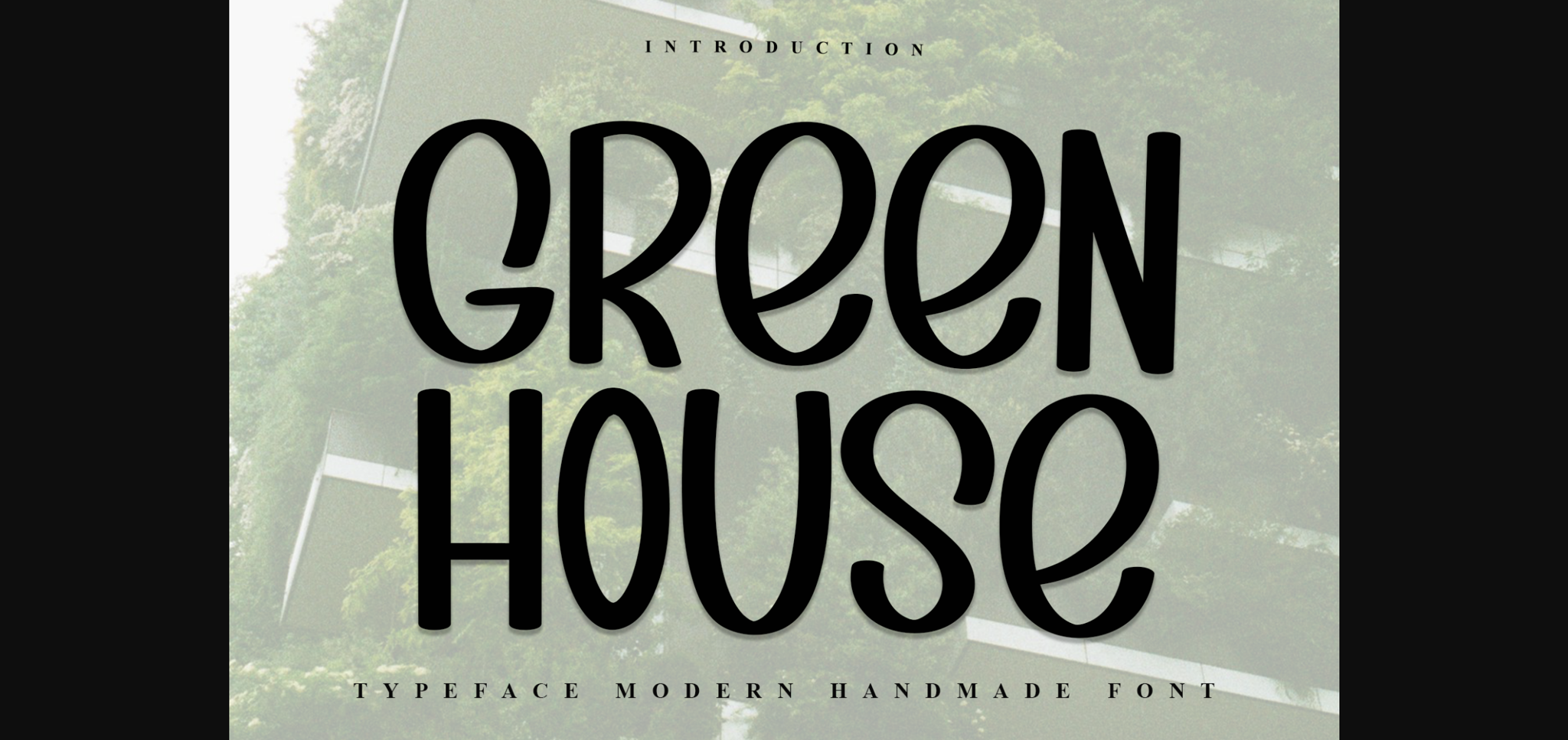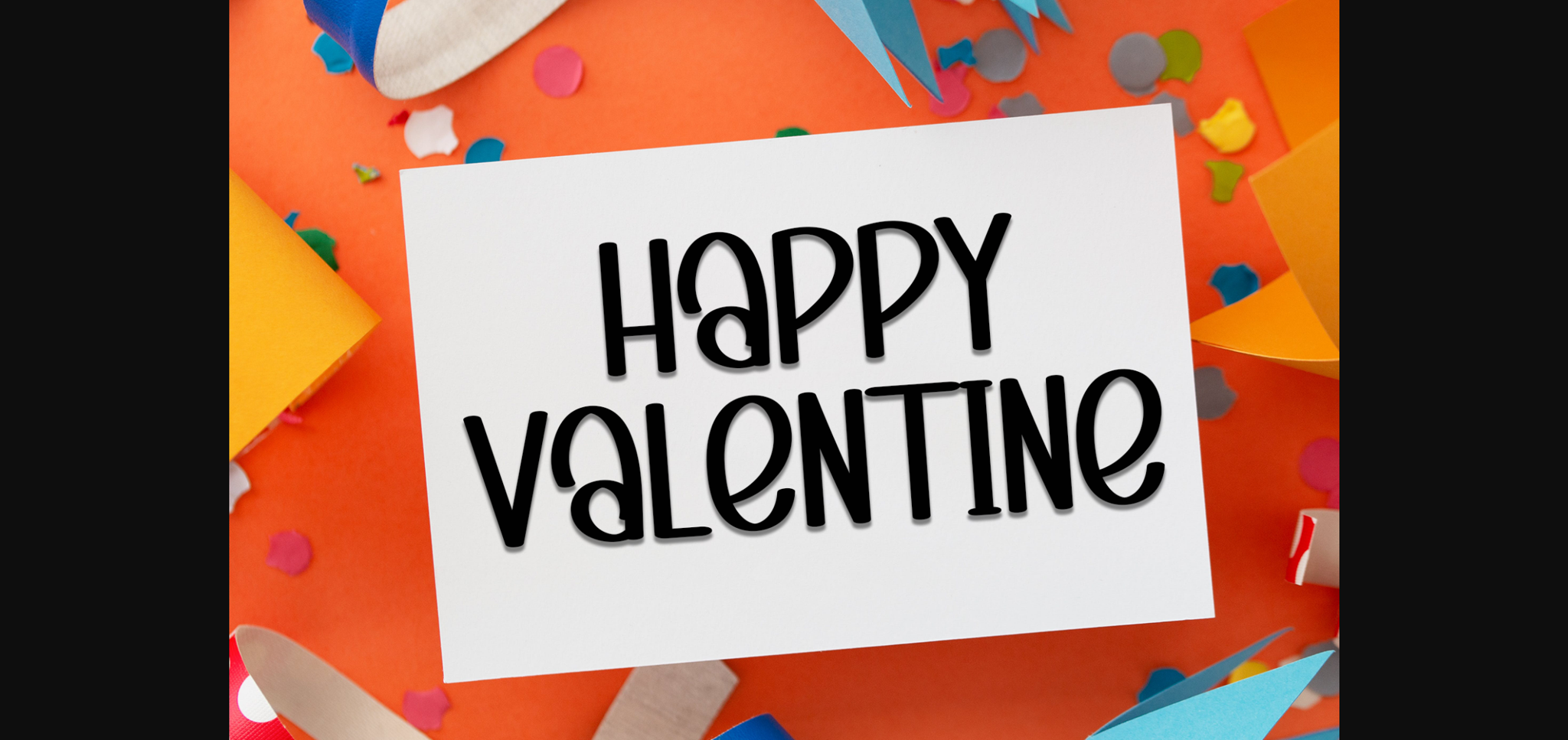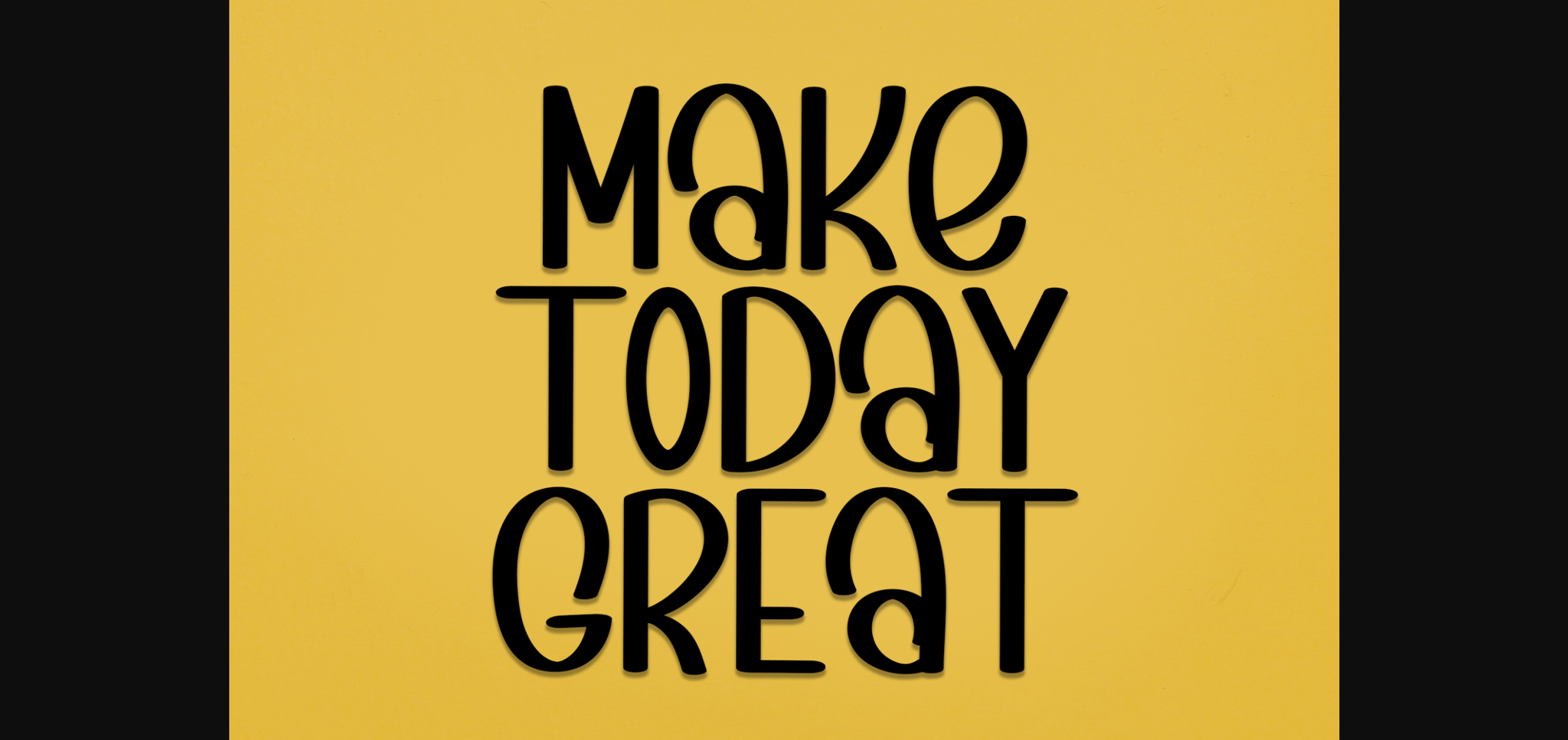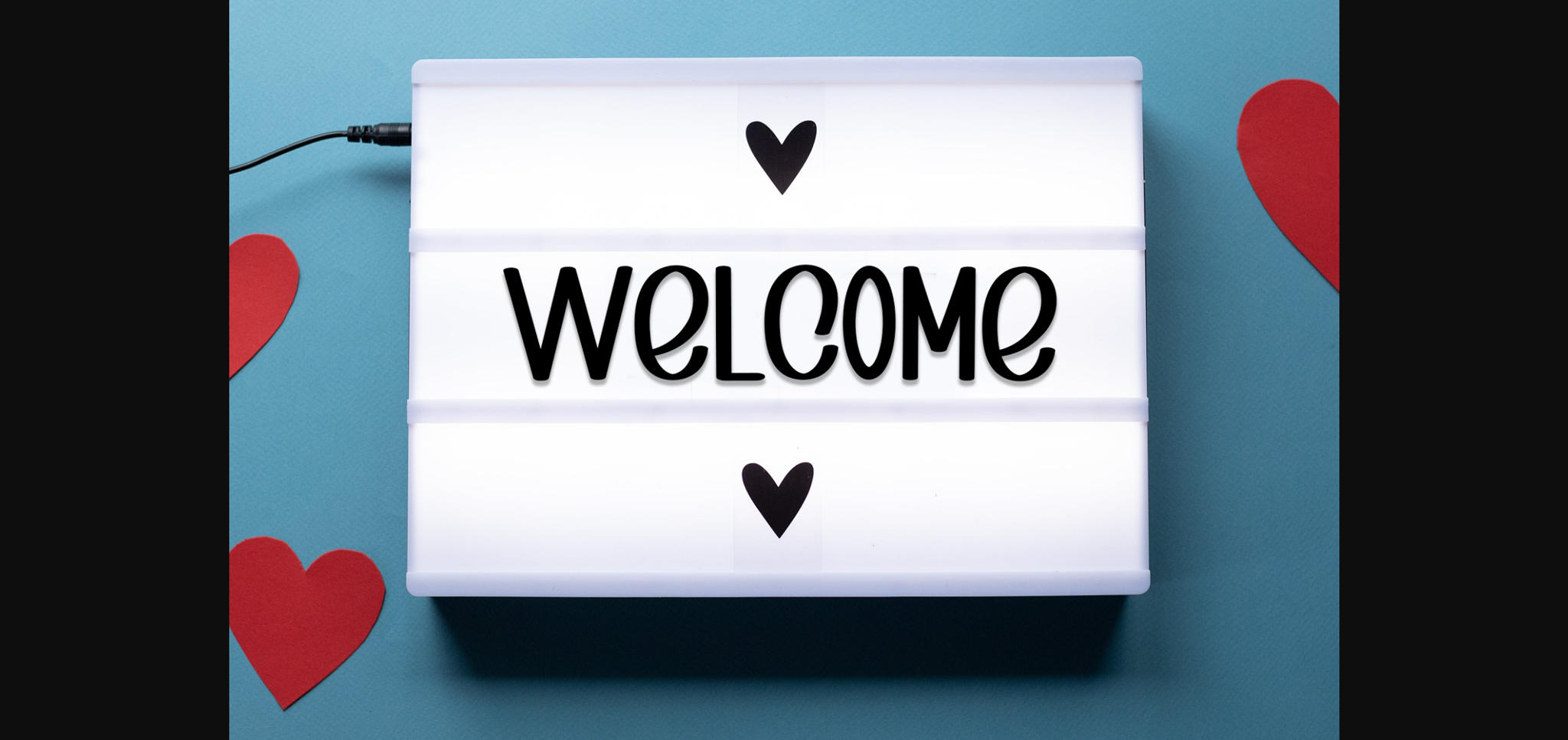
About Green House Font
Green House is a festive and happy typeface that captures the spirit of the holiday season. Perfect for greeting cards, gift labels, and holiday-themed projects, this font brings a cheerful and nostalgic atmosphere to your words.